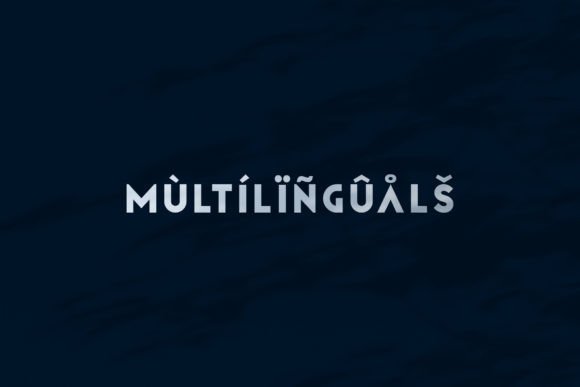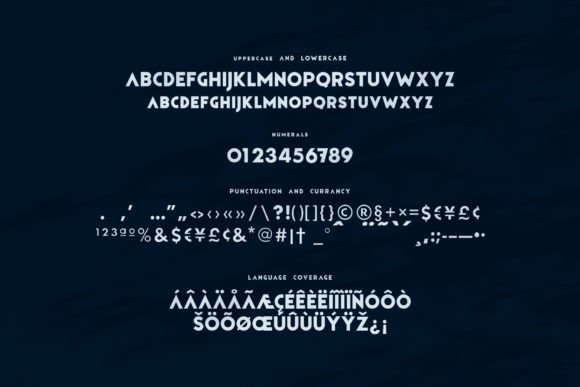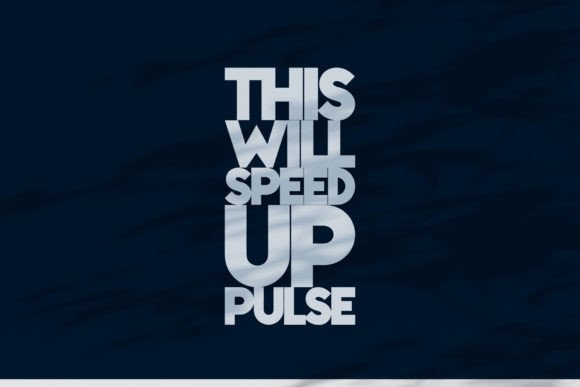
The Power of Enrox Font: A Designer’s Best Friend
I still remember the project that made me fall in love with the Enrox Font. I was working on a tight deadline, tasked with creating an eye-catching poster for a local business. My client wanted something bold, something that would grab attention and convey their message quickly. As I scrolled through font after font, I found myself frustrated and stuck. That was until I stumbled upon Enrox Font. Its strong, bold lines and clean appearance immediately caught my eye, and I knew I had found the perfect fit.
An Honest Review of Enrox Font
- ✨ Impactful and Clear: Enrox Font excels in delivering powerful messages with minimal space. Its bold typeface ensures that your text stands out, making it perfect for impactful headlines, posters, and branding projects.
- ✅ Clean and Solid Appearance: The font’s clean and solid design makes it incredibly versatile, suitable for various design projects, from editorial design to advertising and digital media.
- 💡 Space Efficiency: Enrox Font is designed to be space-efficient, making it ideal for projects where you need to convey a lot of information in a limited space.
While Enrox Font is a powerful tool, it’s not without its quirks. Here are a few things to keep in mind:
- 🤔 Legibility at Small Sizes: Like many bold fonts, Enrox can become a bit tricky to read at very small sizes. It’s best used for headlines or titles rather than body text.
- ⚠️ Overuse: Due to its bold nature, it’s easy to overuse Enrox Font. Make sure to balance it with other fonts or use it sparingly to maintain its impact.
- Take advantage of OpenType features, such as glyphs and stylistic alternates, to add variety to your text.
Exploring OpenType Features
Enrox Font comes with a range of OpenType features that can enhance your designs. Here’s how to access them:
- Here, you can access various glyphs, stylistic alternates, and other features to add depth and uniqueness to your text.
The Backstory of Enrox Font
Enrox Font was designed with the goal of creating a strong, impactful typeface that could convey powerful messages with clarity and intensity. Its designer aimed to create a font that would excel in various design projects, from editorial design to advertising and digital media. The result is a clean, solid, and versatile font that has become a favorite among designers.
| Author | artyway |
Q: What makes Enrox Font stand out?
A: Enrox Font stands out due to its strong, bold lines and clean appearance, making it perfect for impactful headlines, posters, and branding projects.
Q: Can I use Enrox Font for body text?
A: While Enrox Font is primarily designed for headlines and titles, it can be used for body text in larger sizes. However, it’s best used sparingly to maintain its impact.
Q: Is Enrox Font suitable for digital media?
A: Yes, Enrox Font is highly suitable for digital media, including websites, social media graphics, and digital advertising.
Q: Can I use Enrox Font for print projects?
A: Absolutely! Enrox Font is versatile and works well for various print projects, such as posters, flyers, and brochures.